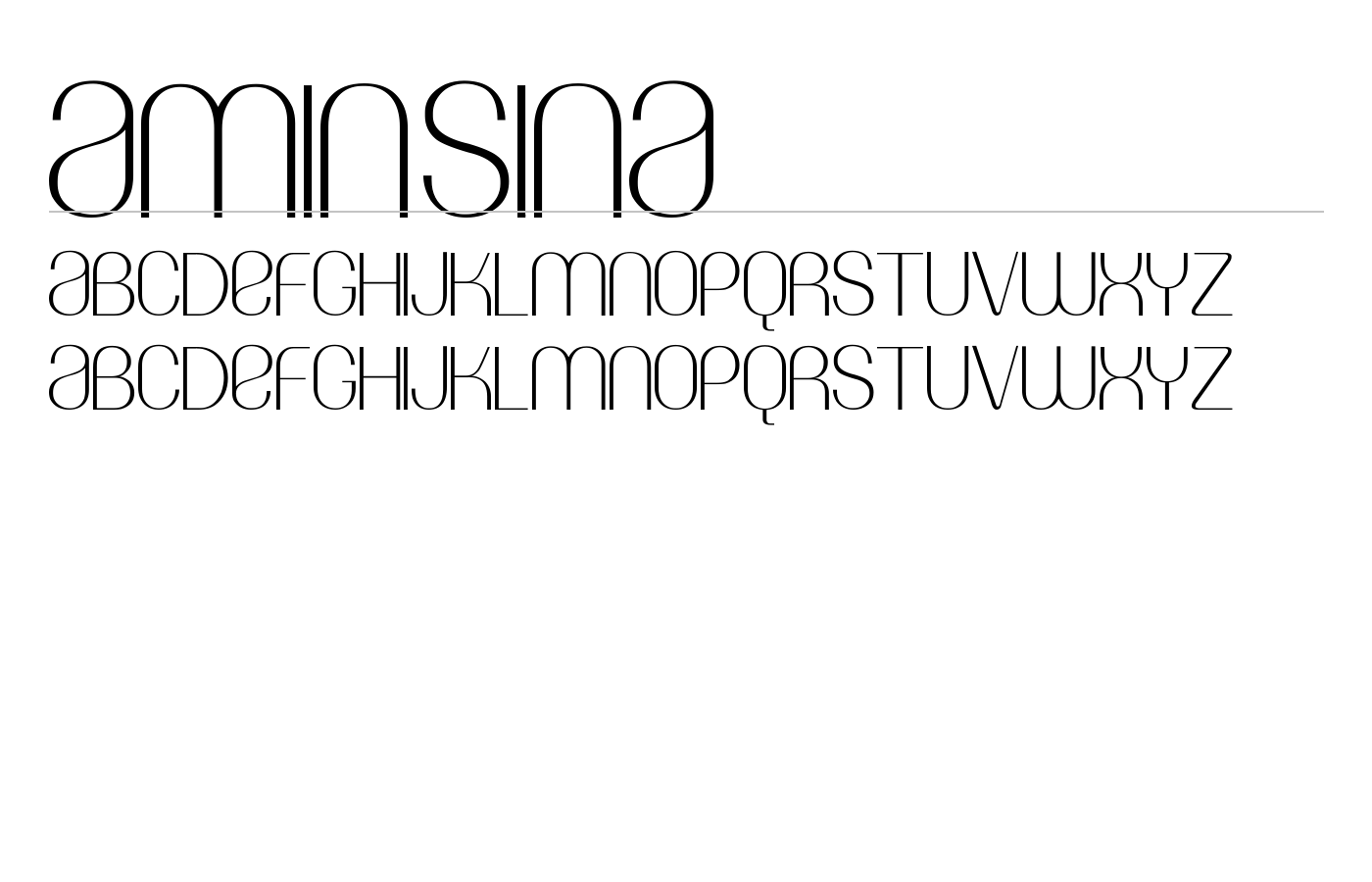
Amin_Sina is a sleek, ultra-light sans serif font characterized by its narrow, elongated letterforms and minimal stroke contrast, creating an elegant and modern look. Its thin, delicate lines and unique curves lend a sophisticated, almost futuristic vibe, making it ideal for fashion branding, editorial headlines, and stylish logo designs where a refined and contemporary appearance is desired.
Amin_Sina Font
About Amin_Sina Font
| Font family | Amin_Sina Font |